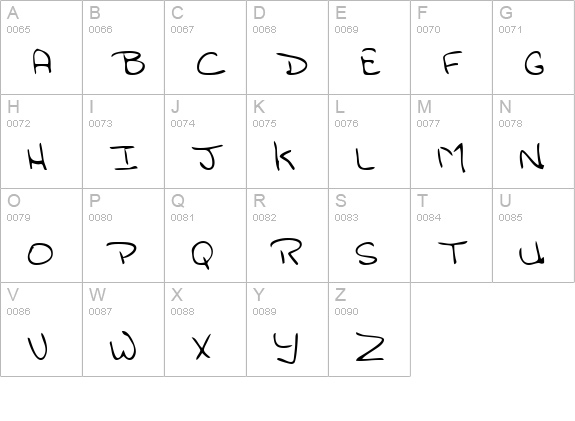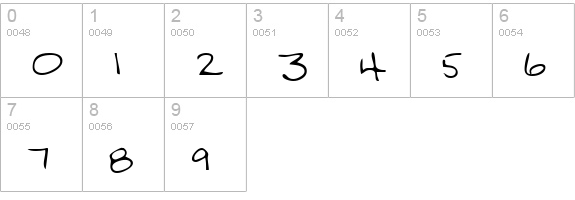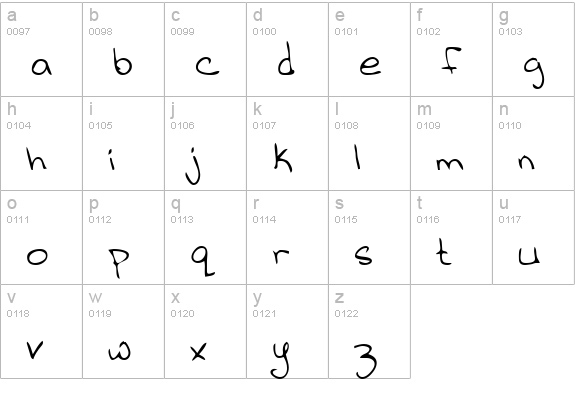
JilliansHand Regular Font Details
JilliansHand Regular is the standard, neutral variant in the JilliansHand typeface family \xE2\x80\x94 well suited to general body text, paragraphs, and standard typographic work.
JilliansHand Regular font is a charming and versatile typeface that exudes a playful and handwritten feel. Its flowing lines and unique character shapes make it perfect for a wide range of design projects, from invitations to branding to social media graphics. This delightful font is freely available to download at FontsMarket.com, allowing you to add a touch of whimsy to your creations without any cost. Embrace the creativity and warmth of JilliansHand Regular font in your next design endeavor and watch as it brings your ideas to life with its captivating charm.